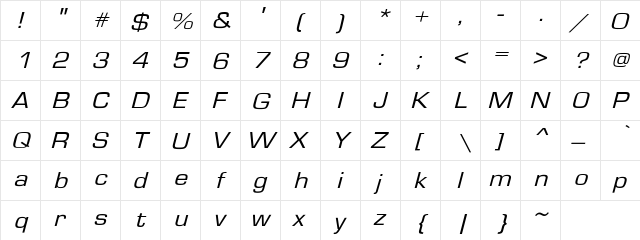
EurostileExtO 2 Regular
Design Context for EurostileExtO 2 Typeface
EurostileExtO 2 takes a measured approach to typography — its balanced proportions and neutral character make it a reliable workhorse for both digital and print work.